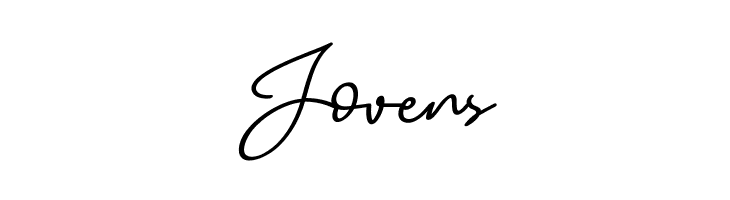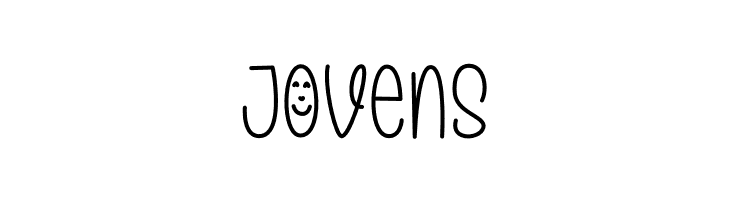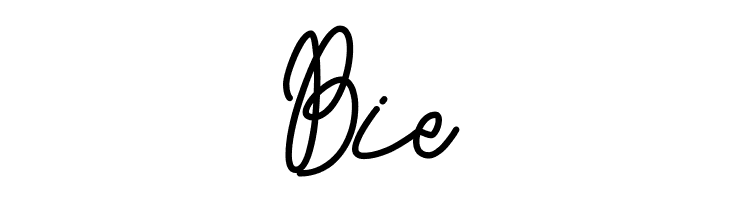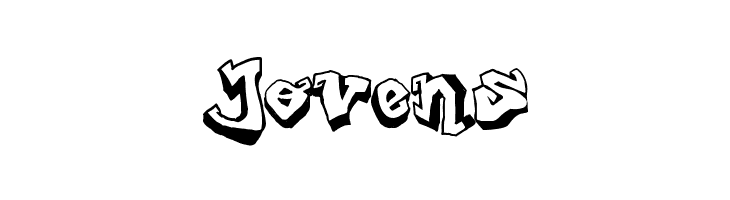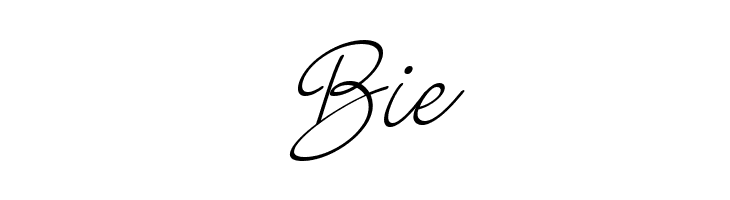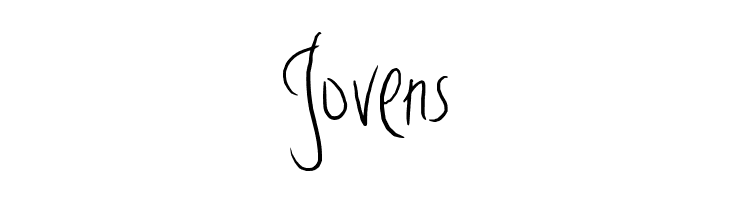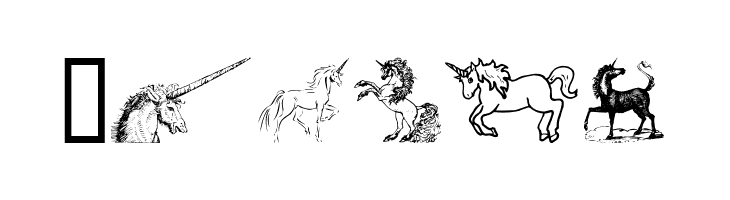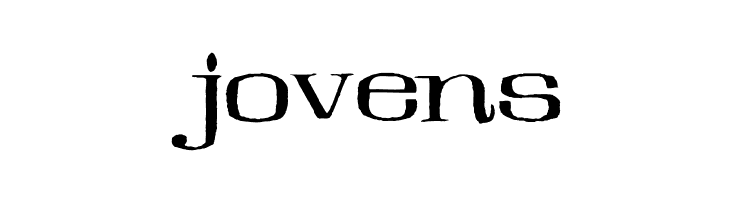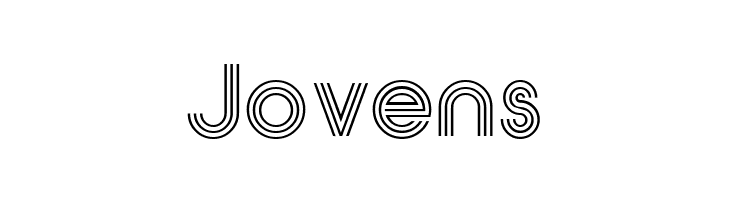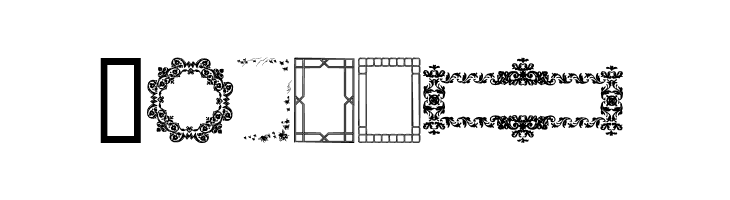
• Artfonts Sampler
• ArtFound
An artistic, illustrative display font with unique drawings for each character.
• Artfully Regular
( Fonts by Niskala Huruf )
A sophisticated script font with fluid, interconnected strokes and elegant curves.
• Artgila Satte Personal Use
An elegant, flowing script font with a cursive, handwritten style.
• ArtGoesPixeled
An artistic, pictorial display font with each character as a unique illustration.
• Arthalia - Personal Use
An elegant, cursive script font with flowing, handwritten strokes.
• Arthamyn
( Fonts by Rantautype )
A lively, expressive handwritten font with fluid, dynamic strokes.
• Arthands
An elegant, cursive font with ornate swirls and flourishes.
• Arthard
( Fonts by Mr. Typeman )
A bold, expressive handwritten font with fluid strokes and medium contrast.
• Arthas Regular
A dynamic and expressive script font with fluid, handwritten strokes.